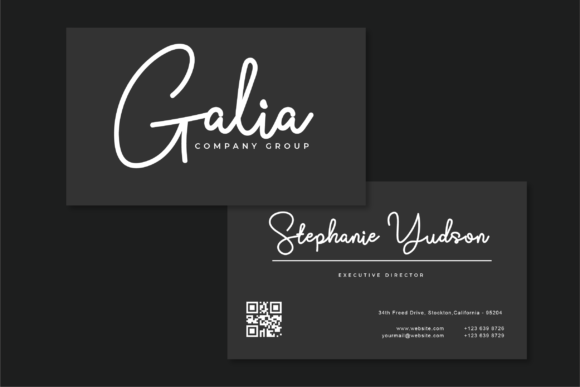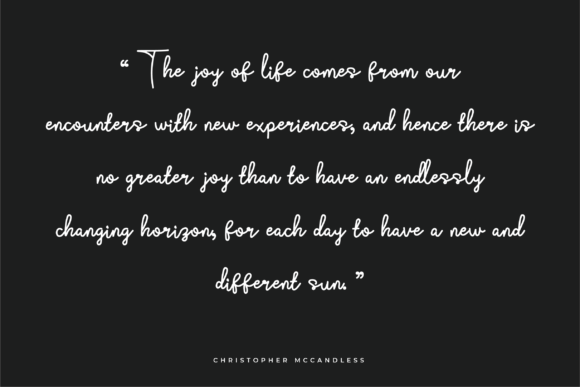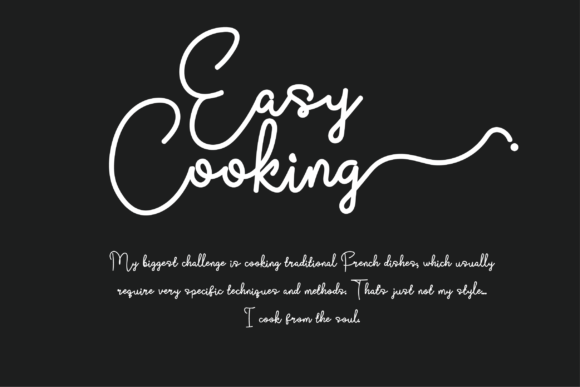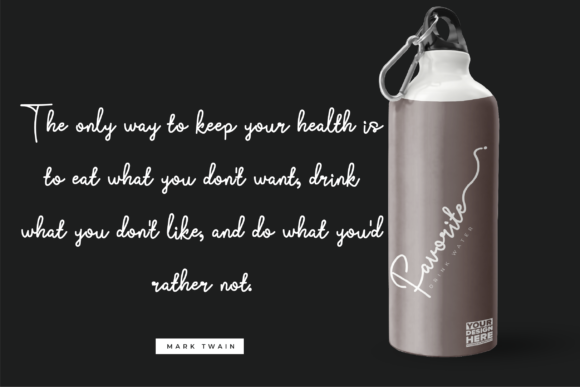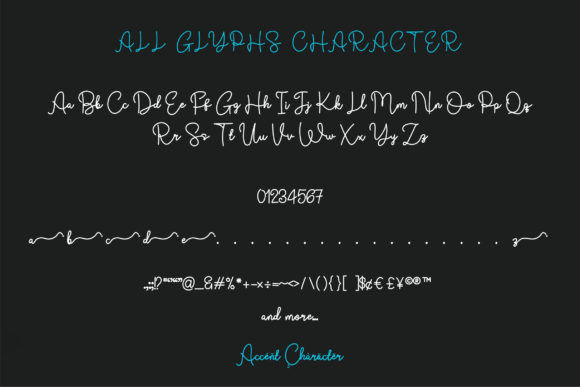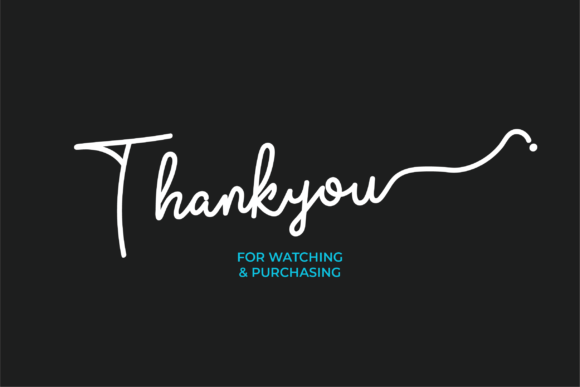
The Elegance Font: Elevate Your Designs with Timeless Style
Elegance is inspired by classic typography and brings its own unique style to any design project. Whether you’re looking for fonts for Instagram or calligraphy scripts for DIY projects, Elegance will turn any creative idea into a true piece of art!
The Good: ✨
- 💯 Timeless elegance: Elegance exudes sophistication and refinement, making it perfect for high-end designs.
- 🎨 Versatility: This font can be used for a wide range of projects, from digital designs to print materials.
- 🤩 Easy to read: Despite its elegant feel, Elegance remains highly legible, even at smaller font sizes.
- ✅ OpenType features: Elegance supports OpenType features, allowing for advanced typographic control.
The Not-So-Good: 🤔
- ⚠️ Limited availability of certain glyphs: Some users may find that certain glyphs or special characters are not available in Elegance.
- 😐 May not be suitable for very informal designs: Elegance is a sophisticated font; it may not be the best fit for very casual or playful designs.
The Designer Inspiration Behind Elegance
Elegance was designed with the goal of creating a font that embodies timeless sophistication and refinement. The designer drew inspiration from classic typography, combining traditional elements with modern sensibilities to create a truly unique font.
| Font Name | Elegance Font |
| Author | Productype |
Q: What is the Elegance font best suited for?
A: Elegance is a versatile font that can be used for a wide range of projects, including digital designs, print materials, and DIY crafts.
Q: Does Elegance support OpenType features?
A: Yes, Elegance supports OpenType features, allowing for advanced typographic control.
Q: Is Elegance easy to read?
A: Yes, despite its elegant feel, Elegance remains highly legible, even at smaller font sizes.